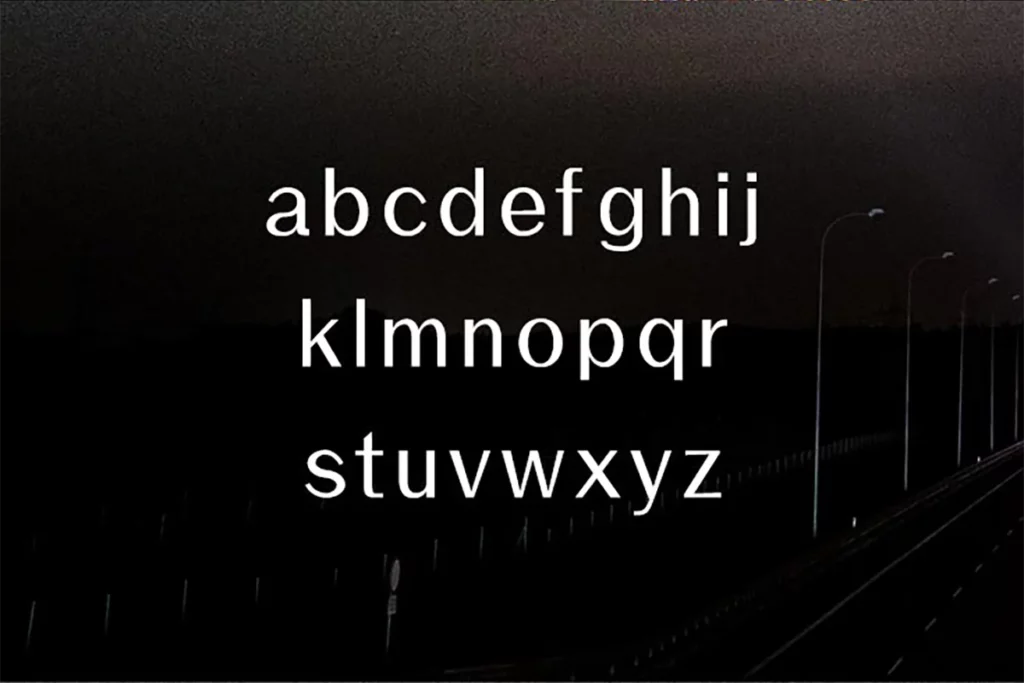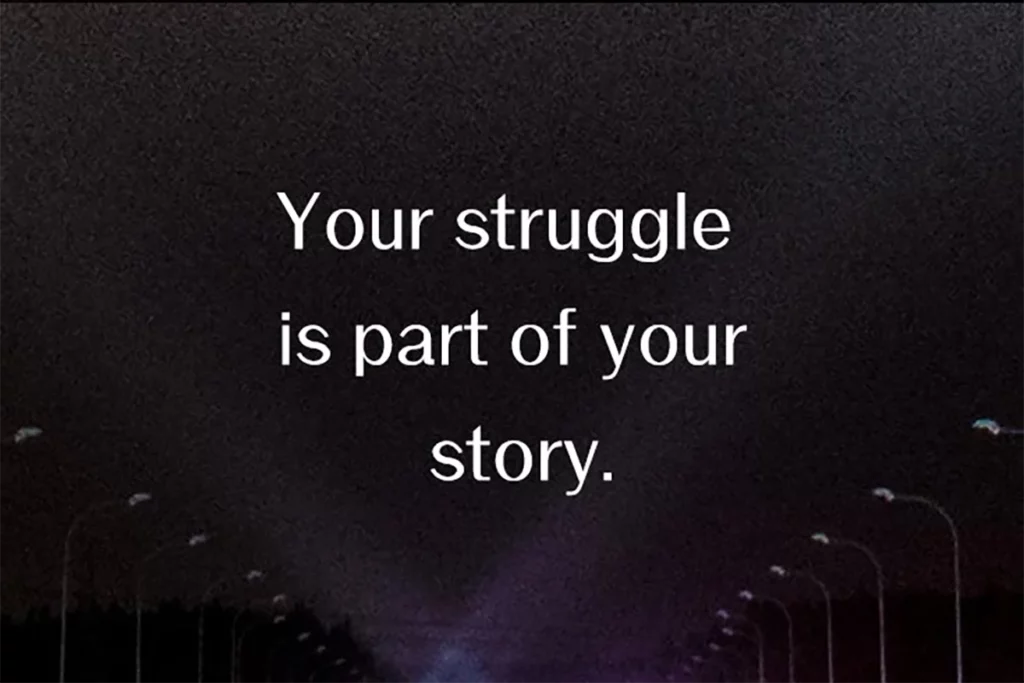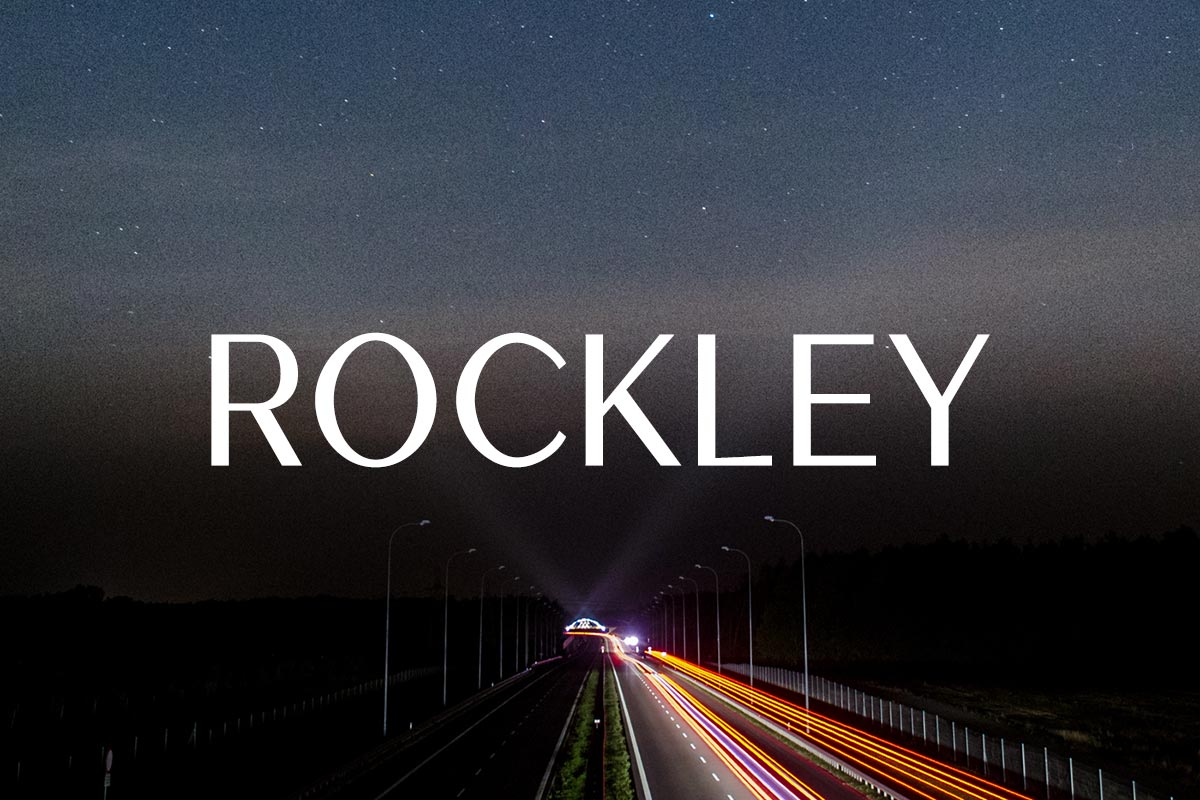
Rockley Sans Serif Font
Introducing the Rockley Sans Serif Font: sleek, modern, and effortlessly stylish, it perfectly captures the spirit of the font—bold, clean letters jutting out onto a serene, starlit highway.
Rockley is built on clarity and versatility, making it perfect for everything from eye-catching headlines to stunning branding projects. Whether designing for the web or print, Rockley adds a touch of sophistication and confidence to any creative endeavor.